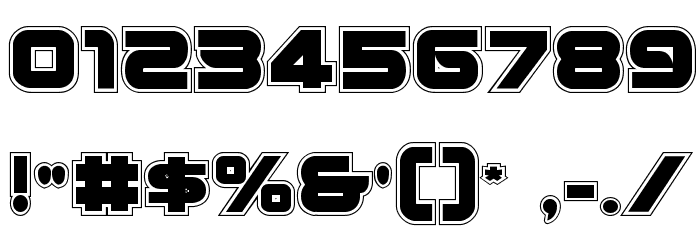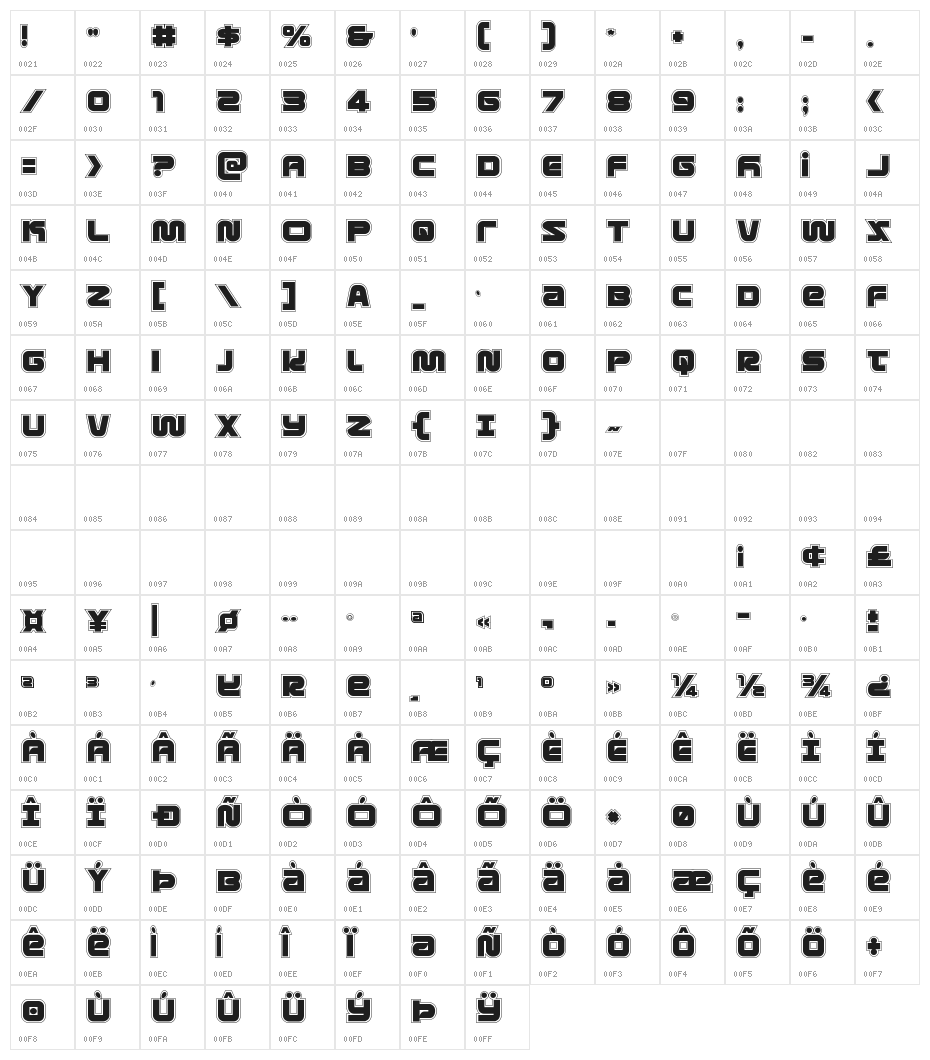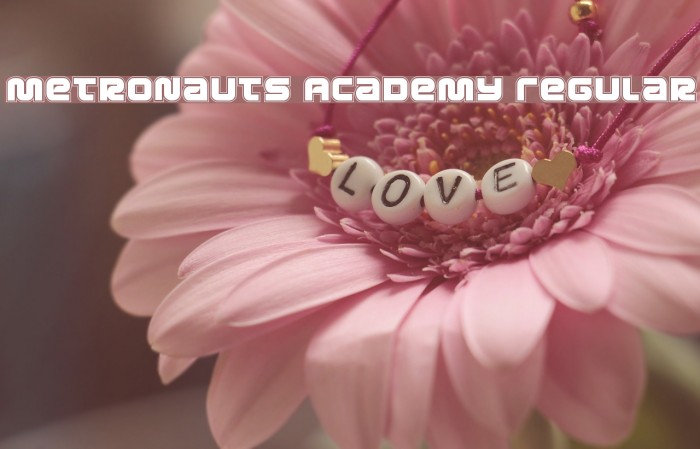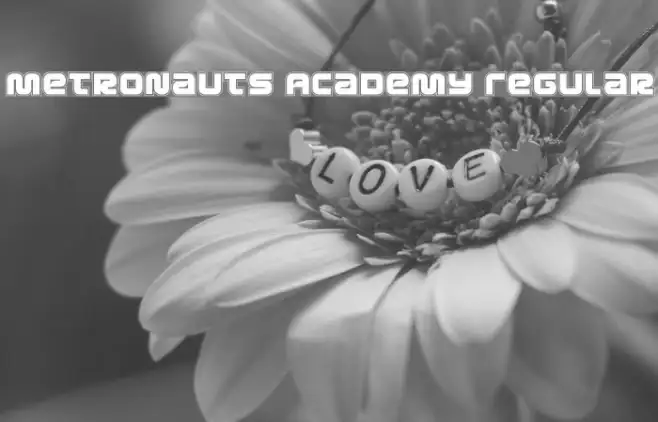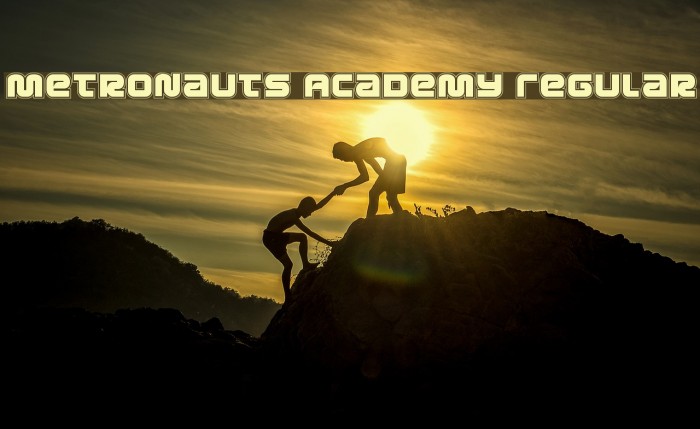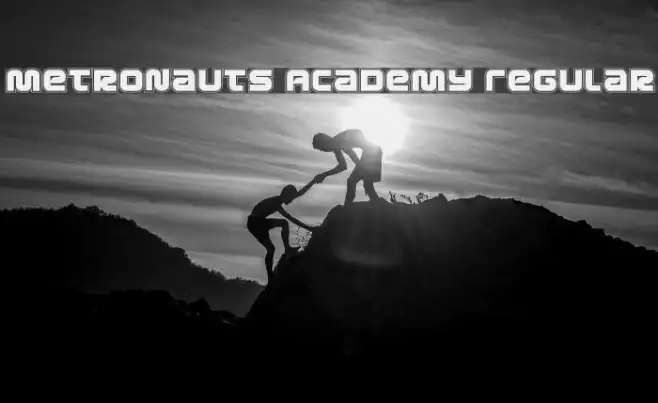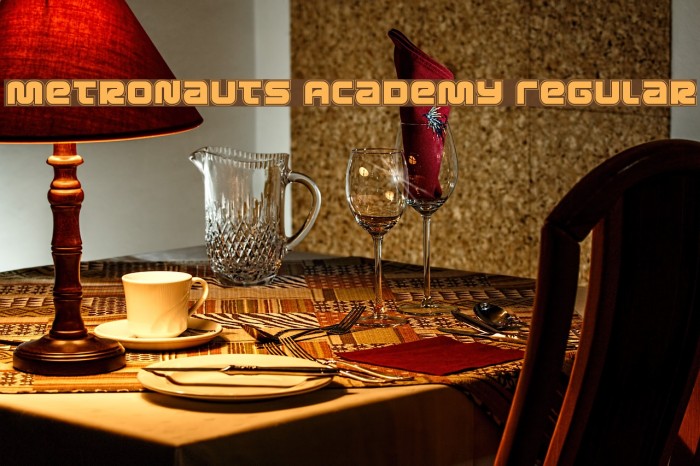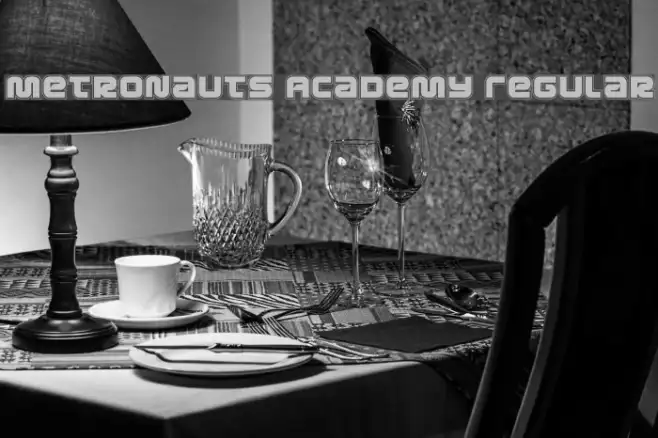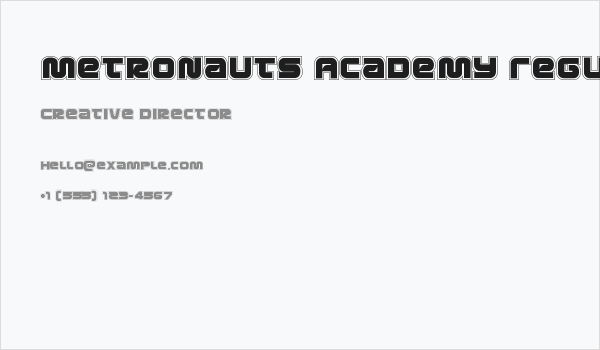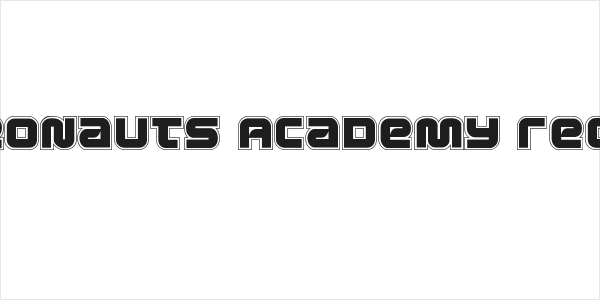
Metronauts Academy Regular Font
Metronauts Academy Regular Description
This font features a bold, futuristic design with a strong geometric structure. The characters are outlined with a thick border, giving them a three-dimensional appearance. The uppercase and lowercase letters maintain a consistent style, with angular cuts and a blocky form that suggests a modern, tech-inspired aesthetic. The numerals and special characters are designed to match the boldness and style of the alphabet, ensuring uniformity across all glyphs. The font's unique style makes it stand out, suitable for projects that require a distinctive and impactful visual presence.
| Proposed Projects | Ideal for sci-fi themed posters, video game titles, technology branding, and futuristic event invitations. |